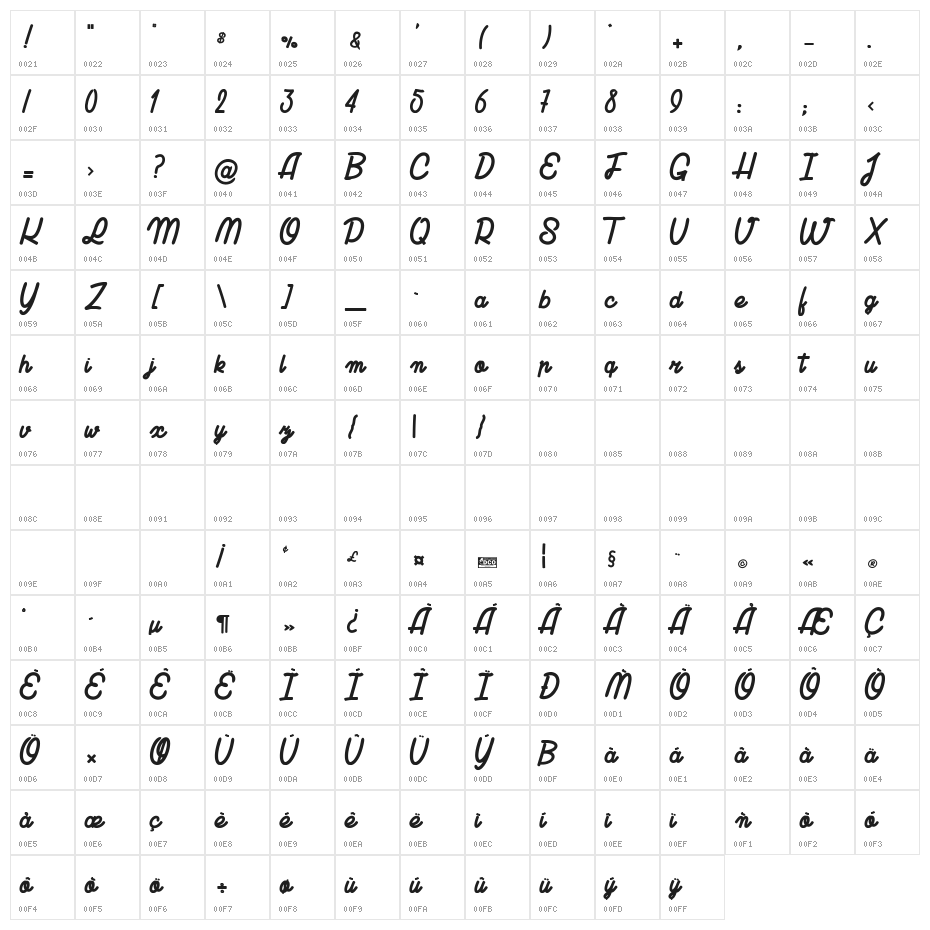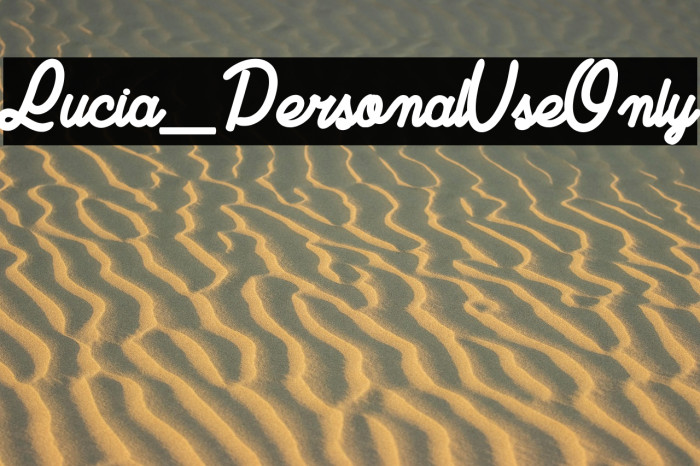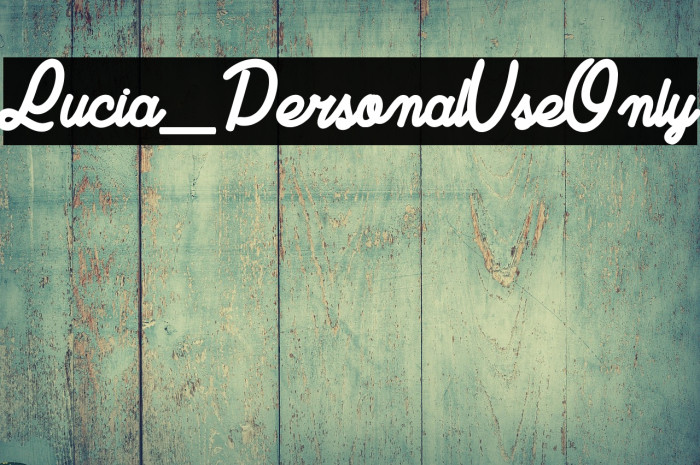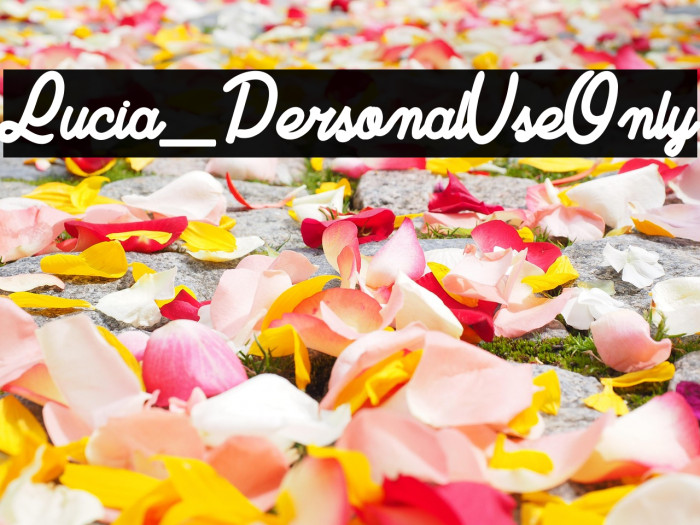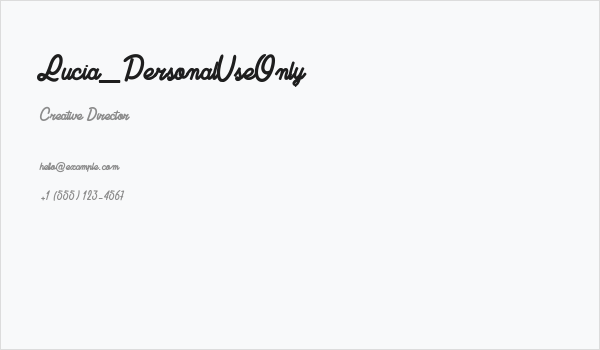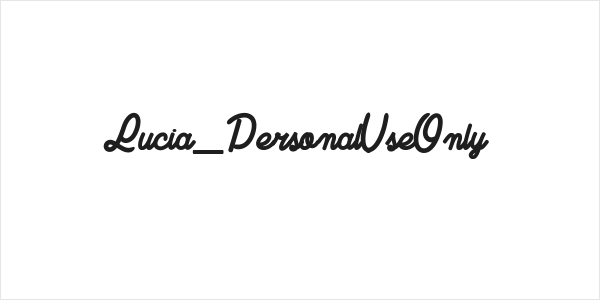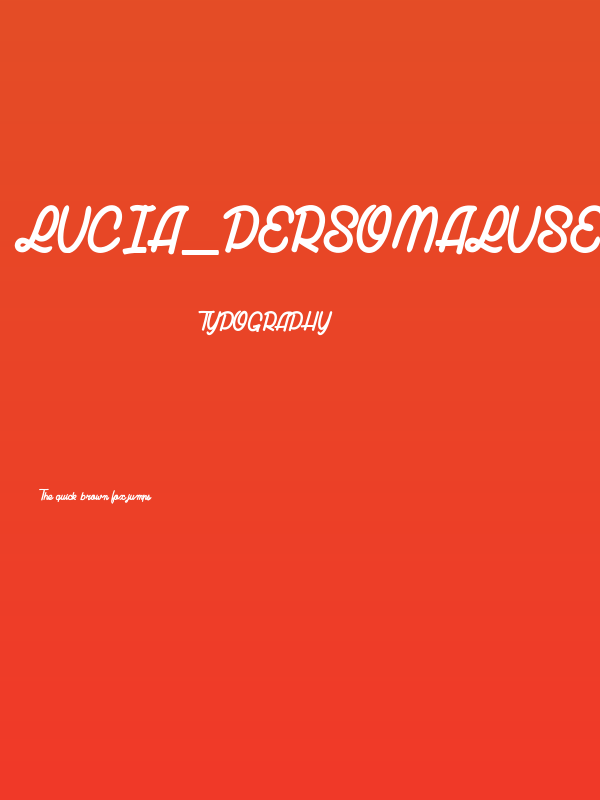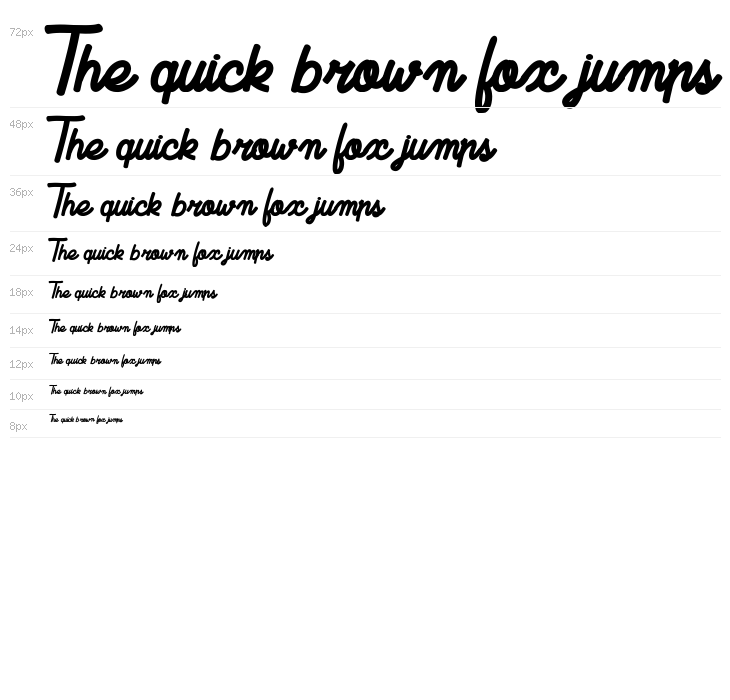
Lucia_PersonalUseOnly Font
Lucia_PersonalUseOnly Description
This font features a playful and flowing script style, characterized by its smooth, connected letters that mimic a handwritten appearance. The uppercase letters are bold and slightly slanted, while the lowercase letters maintain a consistent flow with rounded edges. The numerals are clear and maintain the same playful style, making them easily readable. Special characters are integrated seamlessly, adding to the font's versatility. The overall design exudes a casual yet elegant feel, suitable for a variety of creative projects.
| Use Case | Logos, Invitations, Greeting Cards |
| Proposed Projects | Ideal for invitations, greeting cards, logos, and branding materials that require a personal touch. |